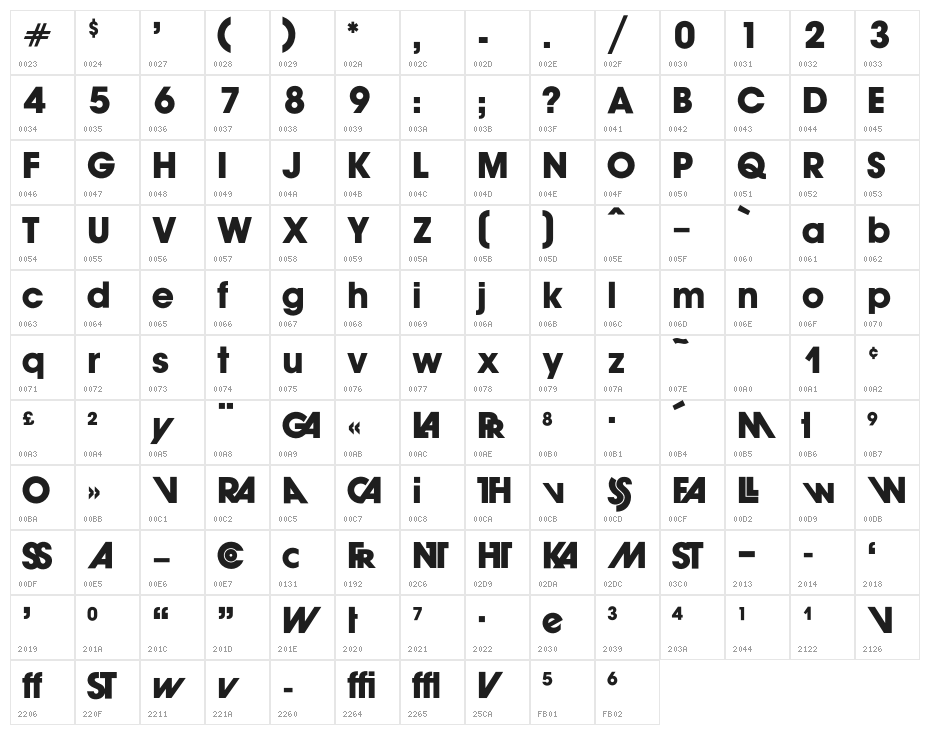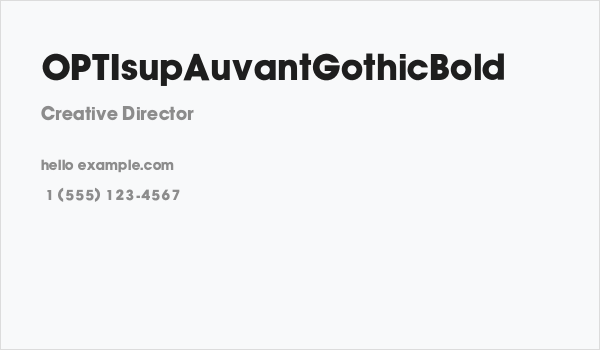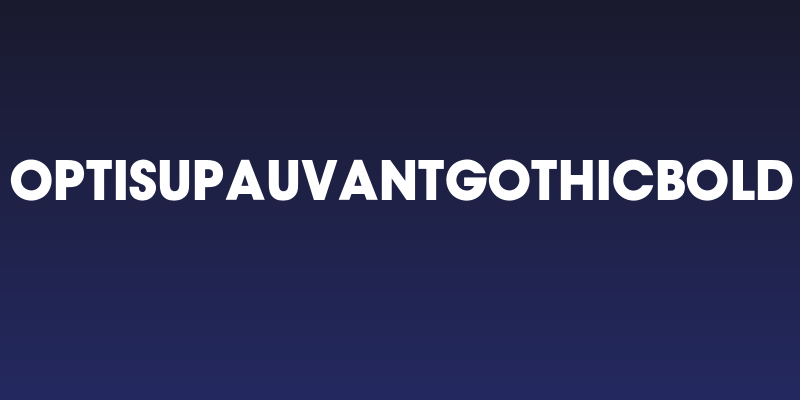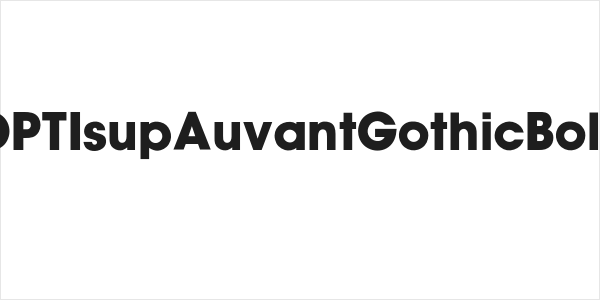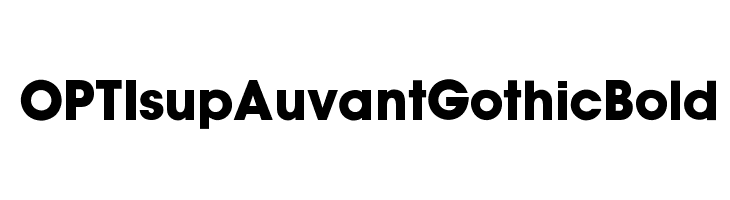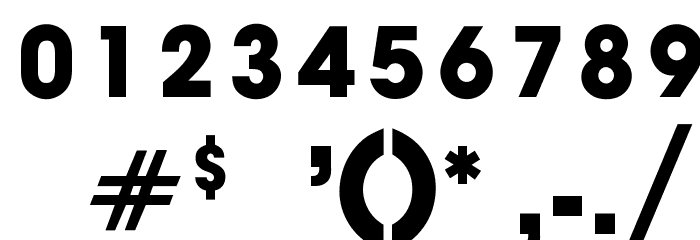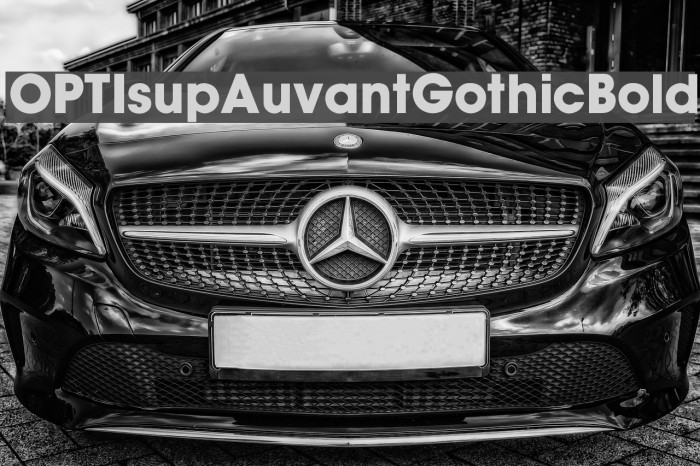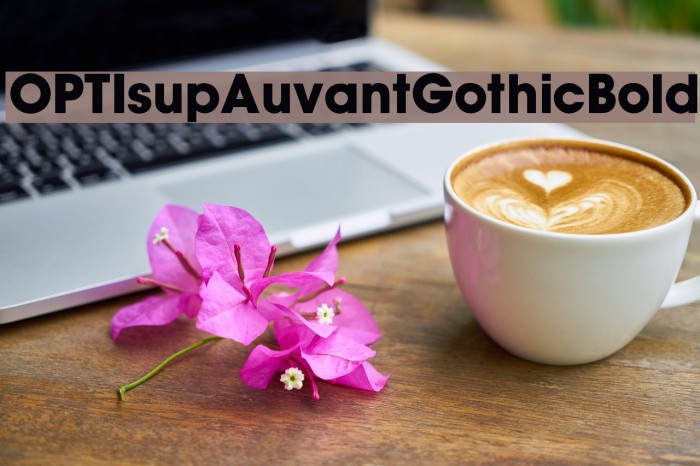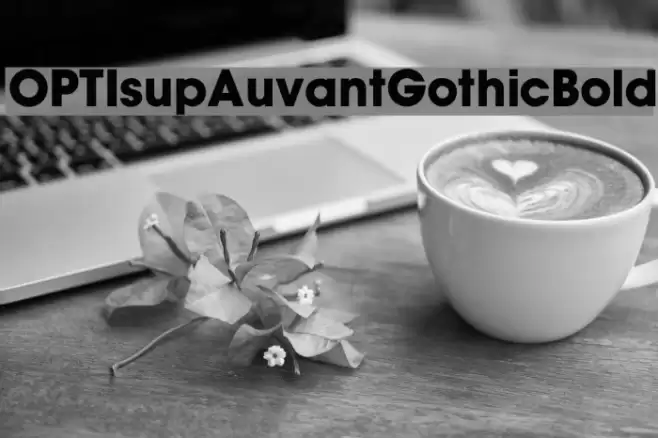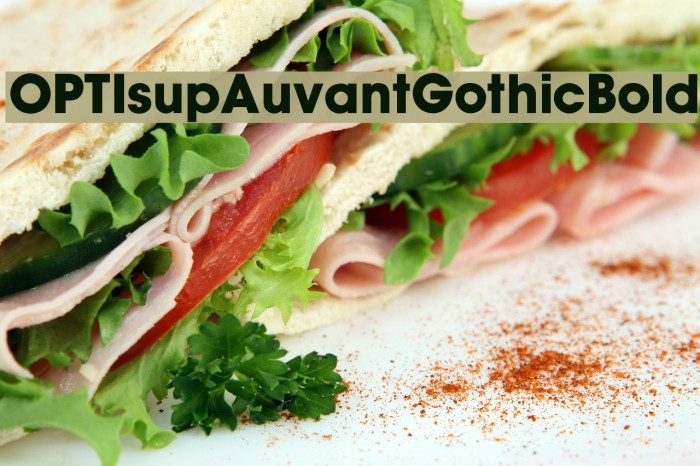
OPTIsupAuvantGothicBold Font
OPTIsupAuvantGothicBold Description
This font features a bold and modern sans-serif style with clean, geometric lines and a strong presence. The uppercase and lowercase letters are well-proportioned, maintaining a consistent weight throughout. The numerals are clear and easy to read, matching the boldness of the alphabetic characters. Special characters are distinct and maintain the same bold, geometric aesthetic. The overall design is straightforward and impactful, making it suitable for a variety of applications where clarity and modernity are desired.
| Proposed Projects | Ideal for branding, headlines, posters, and any design requiring a modern and bold typeface. |